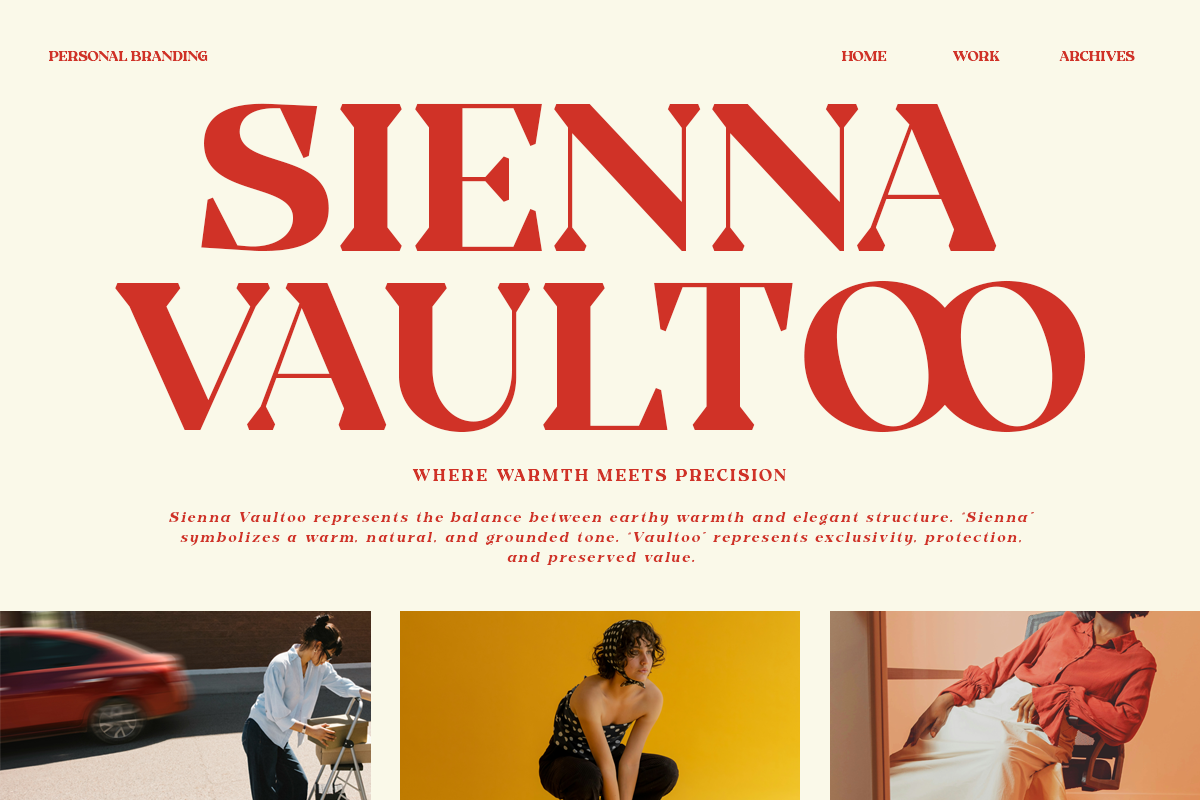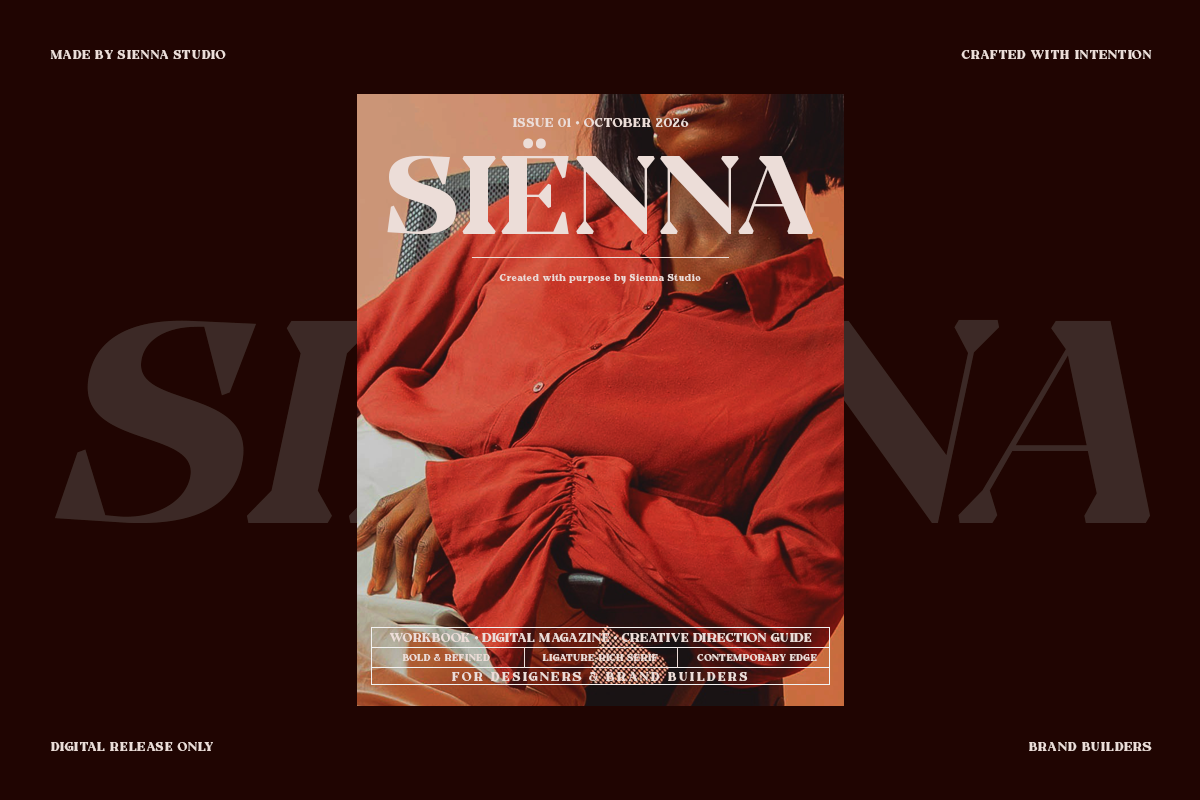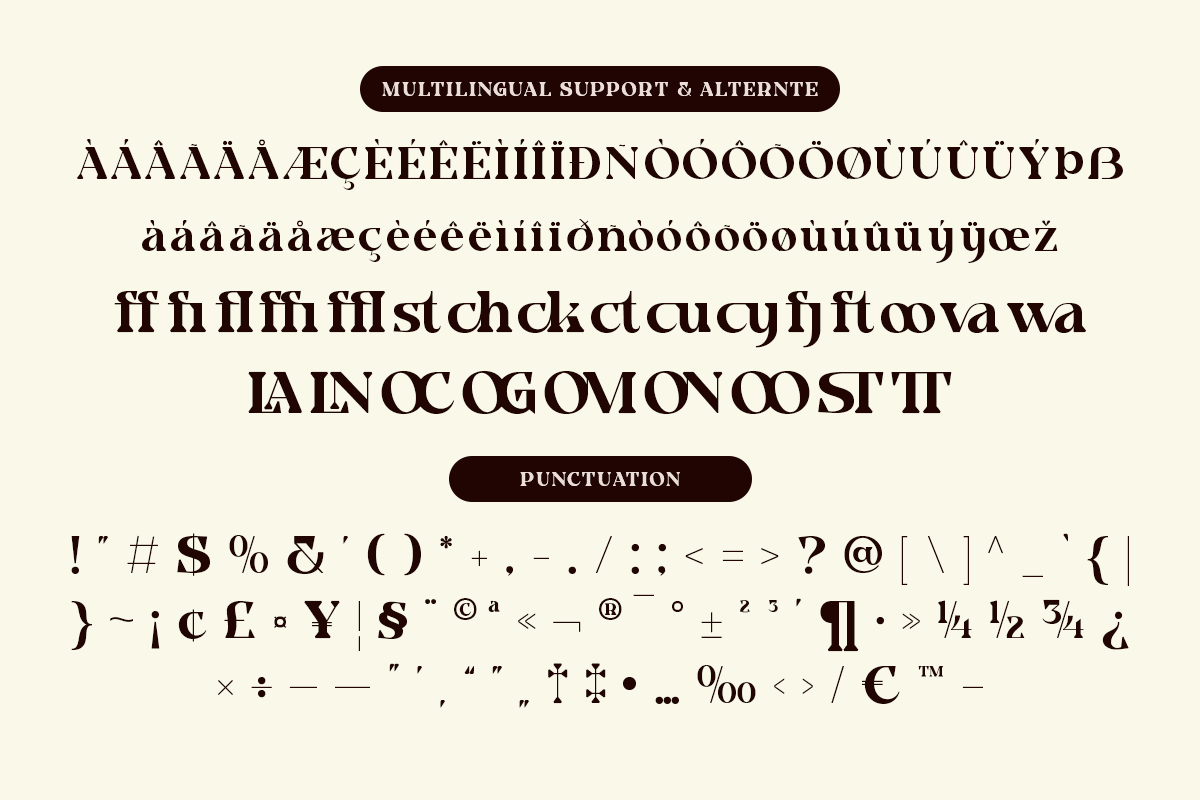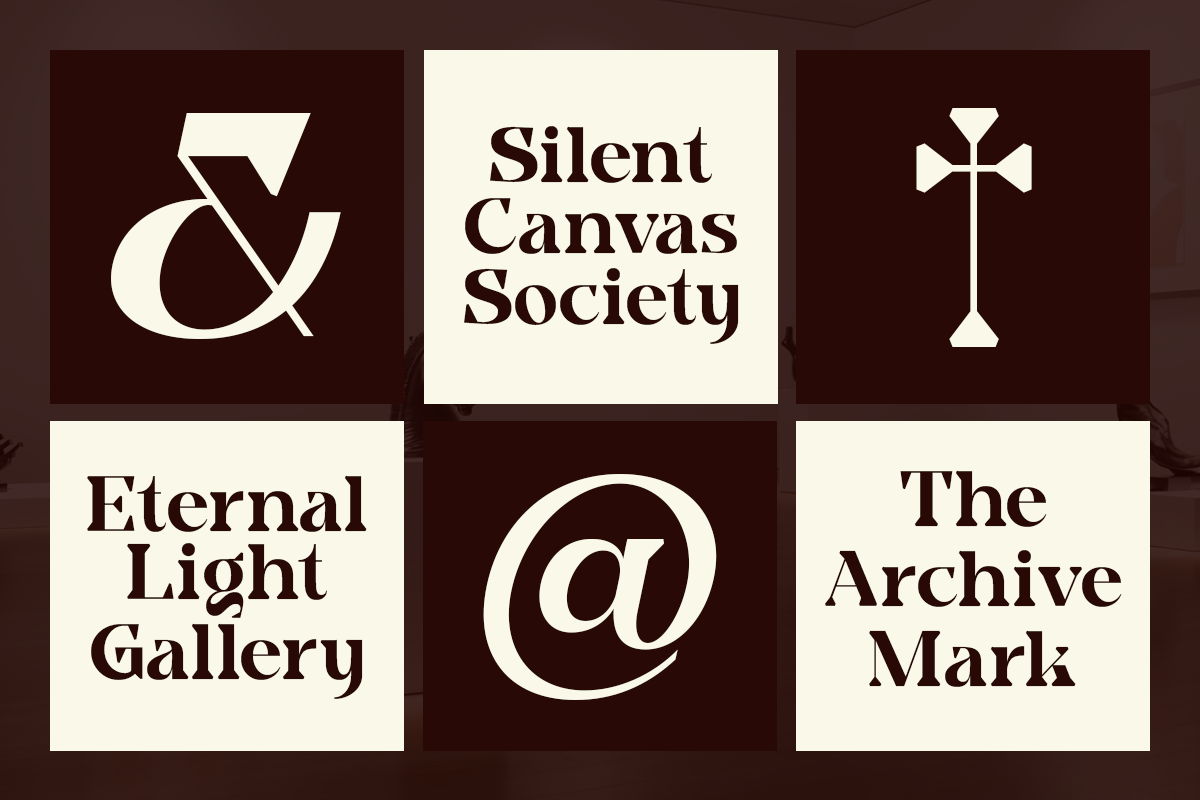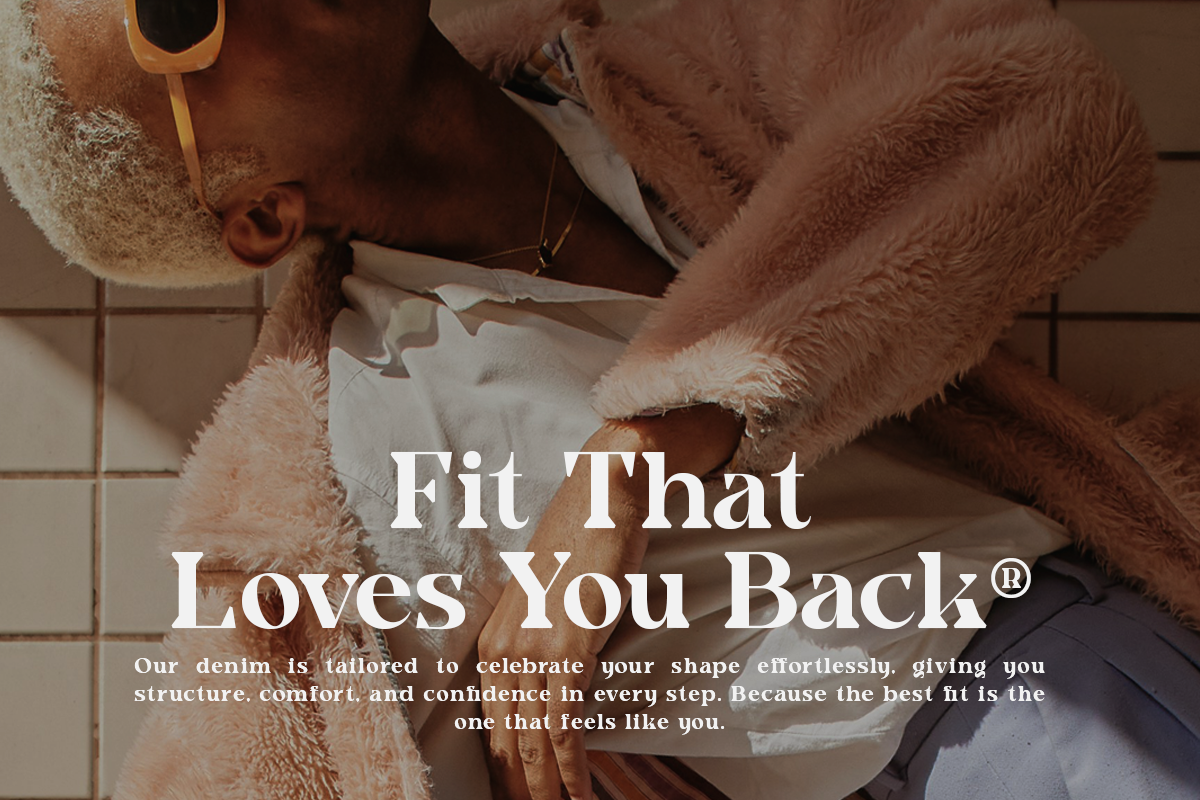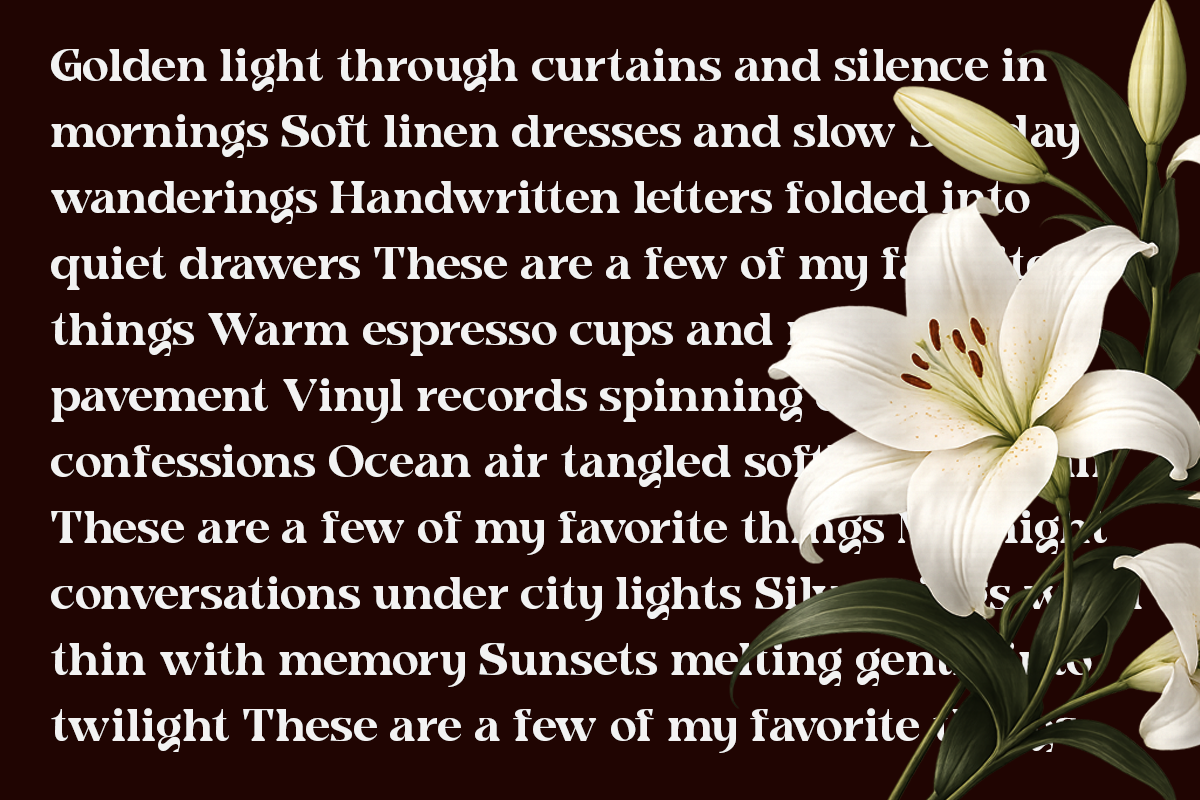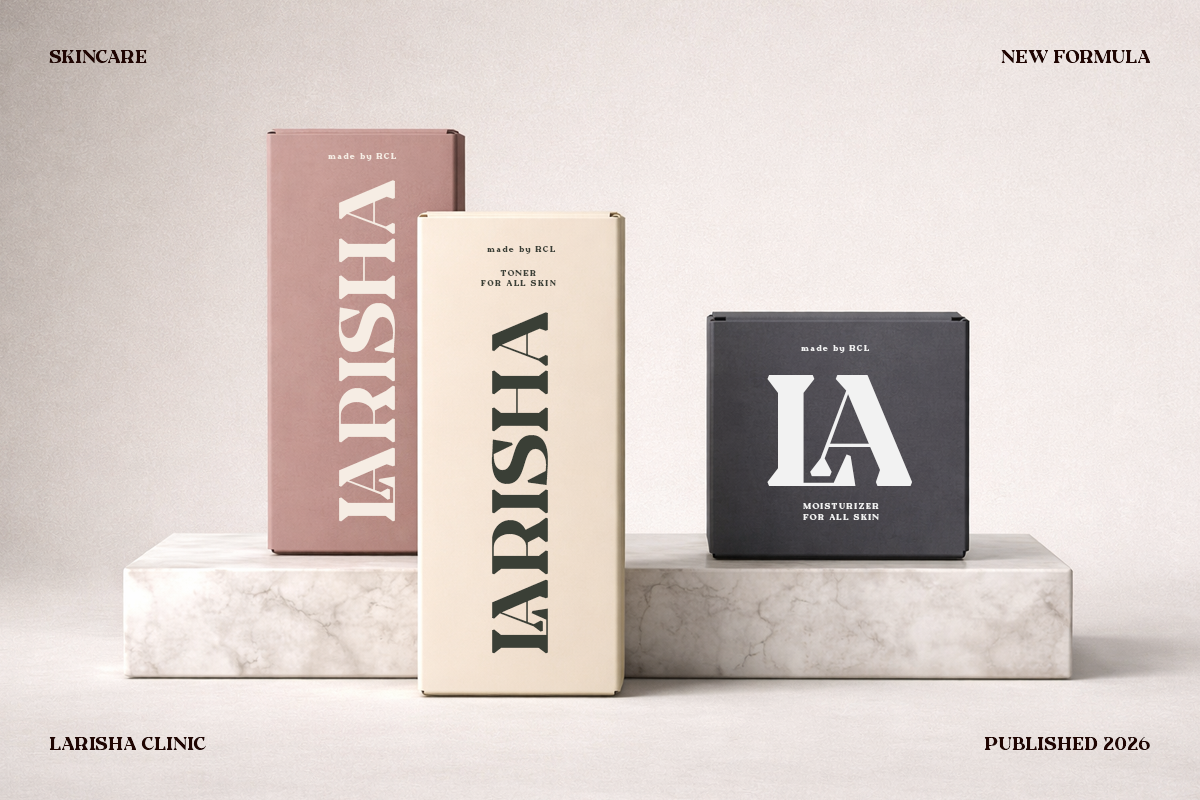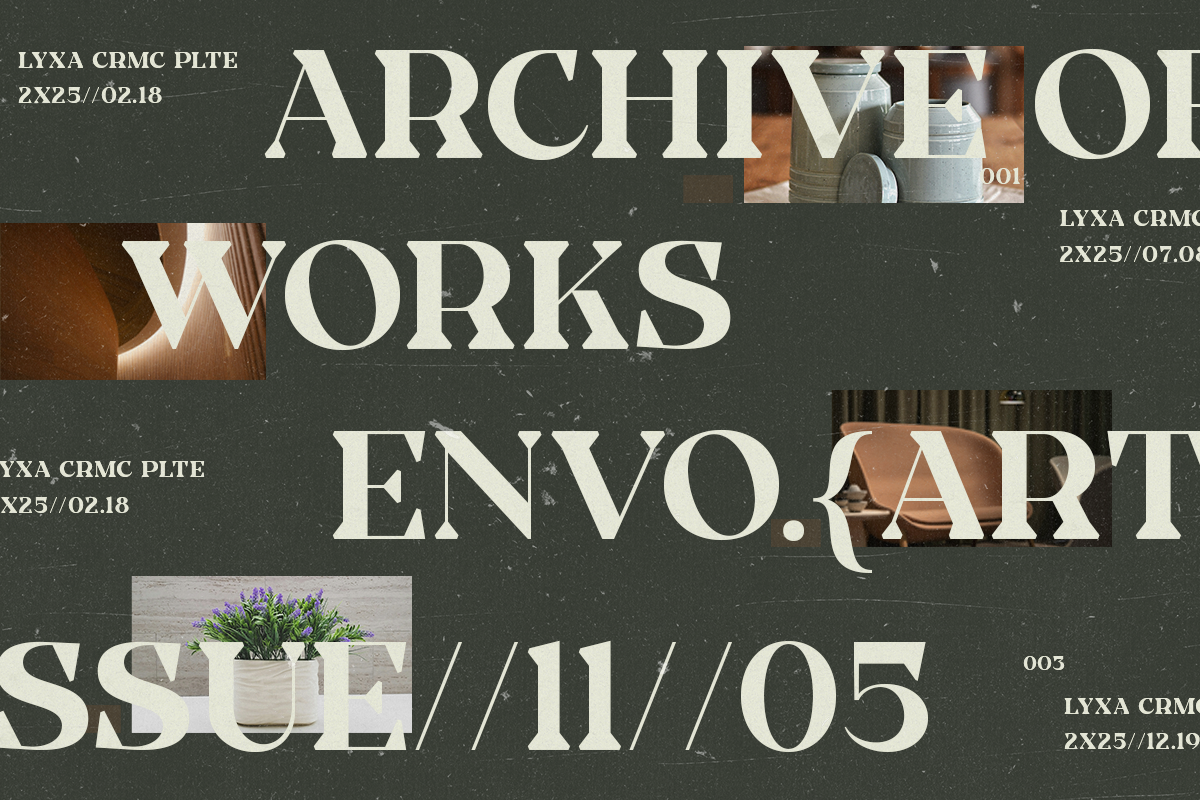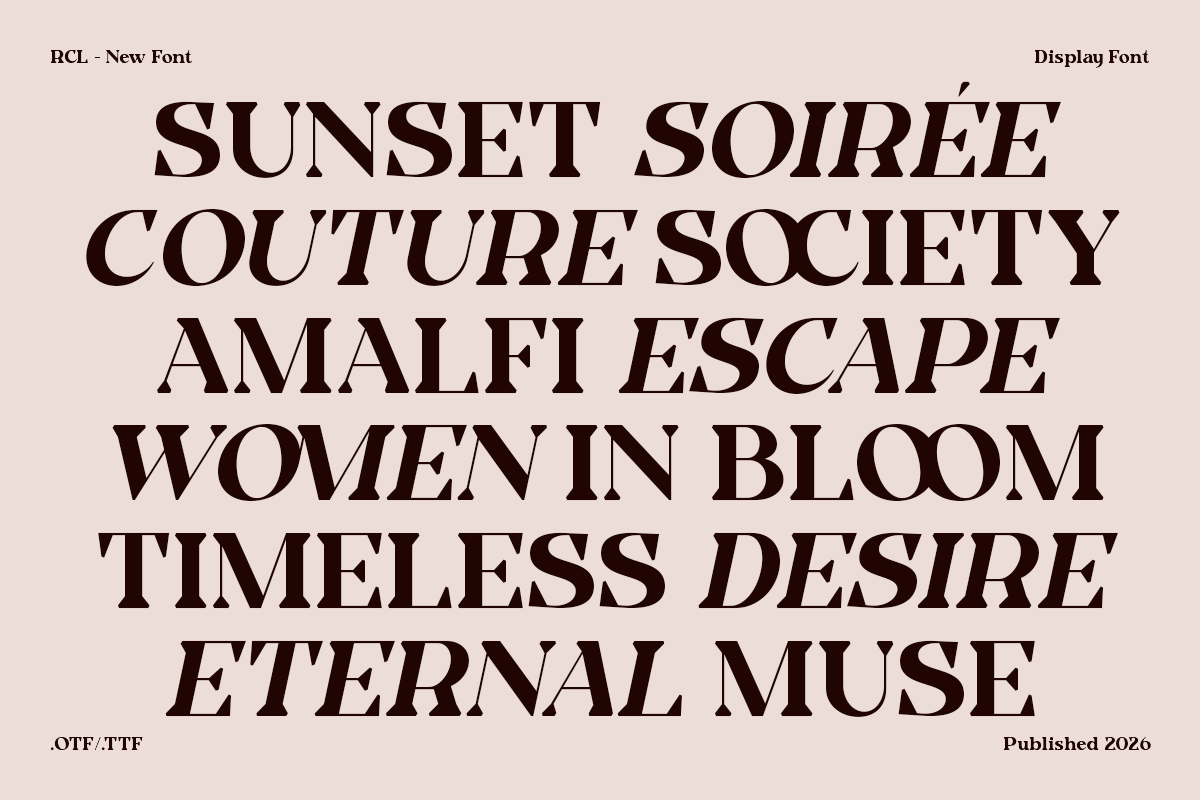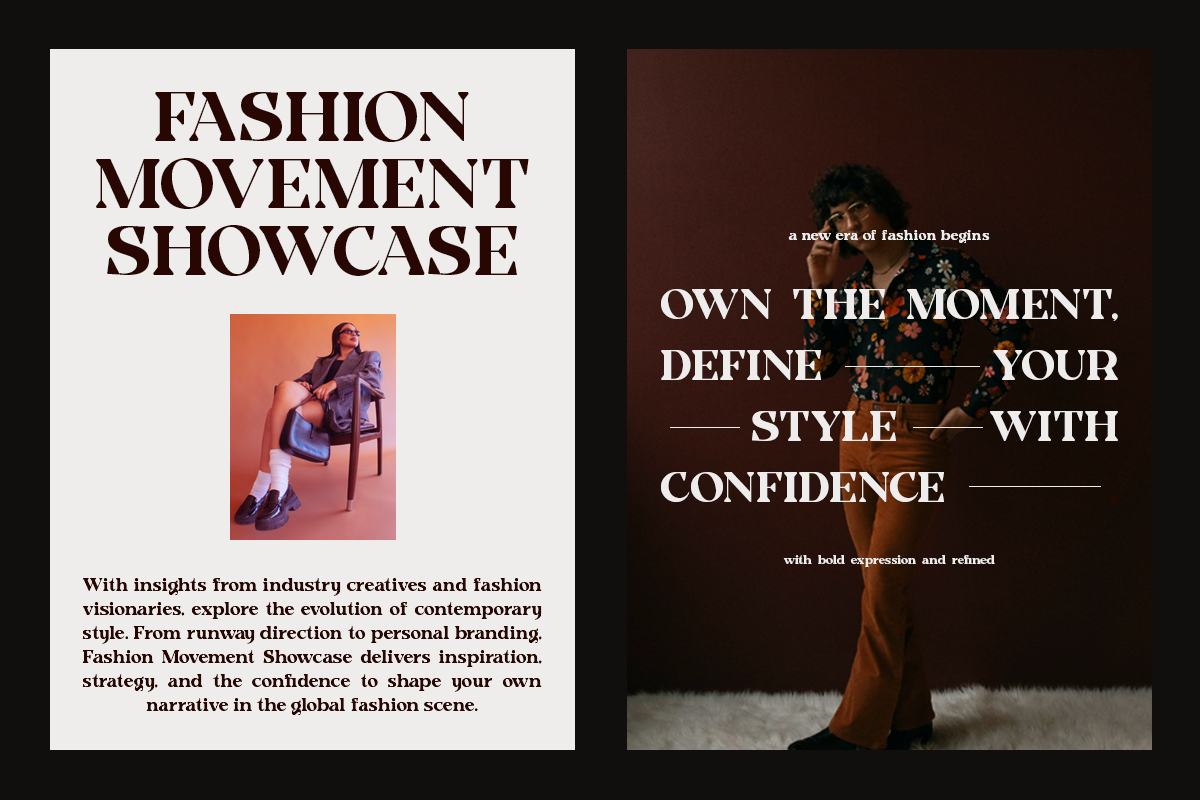
Kesiq – Modern Elegant Serif Display
A refined serif display font designed for fashion branding, editorials, and premium design projects.
Kesiq is a modern serif display font that blends sculptural elegance with contemporary clarity. Designed with high contrast and distinctive curves, Kesiq brings sophistication and authority to every composition. Perfect for luxury logos, fashion campaigns, minimalist packaging, and editorial layouts, Kesiq helps brands communicate refinement and confidence through typography. Whether used for bold headlines or upscale identity systems, this typeface delivers timeless beauty with modern precision.
- Elegant high-contrast serif
- Clean spacing & kerning
Perfect For : Brand identities, fashion design, packaging, magazine covers, social media campaigns, lookbooks, and premium websites.